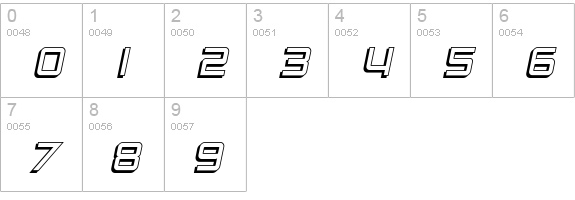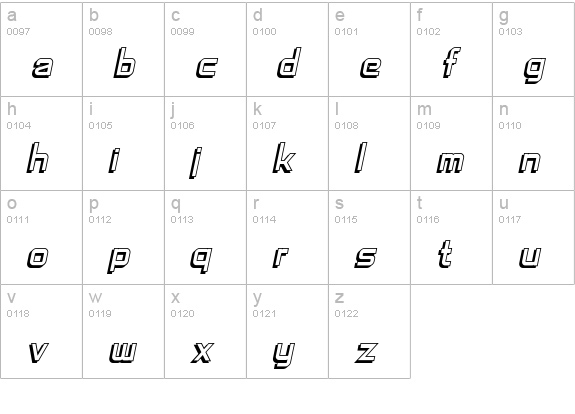
SF Chaerilidae Shaded Oblique Font Details
SF Chaerilidae Shaded Oblique is a distinctive, italic variant in the SF typeface family \xE2\x80\x94 well suited to design and typography projects.
Introducing SF Chaerilidae Shaded Oblique - a mesmerizing and versatile typeface that effortlessly combines elegance with a touch of eccentricity. This font is a testament to the boundless creativity and meticulous craftsmanship of its designer. With its unique shading and oblique design, SF Chaerilidae Shaded Oblique breathes life into any project, captivating viewers with its captivating curves and striking presence. This font is a true masterpiece, meticulously crafted to perfection. Its fluid strokes and impeccable detailing make it a perfect choice for a wide range of design projects. Whether you're creating an eye-catching logo, designing a captivating poster, or crafting an immersive website, SF Chaerilidae Shaded Oblique will effortlessly elevate your work to new heights. One of the most remarkable features of SF Chaerilidae Shaded Oblique is its versatility. It effortlessly adapts to various design styles, seamlessly blending with both modern and classic aesthetics. Its unique shading adds depth and dimension to any text, making it visually stunning and captivating. And the best part? SF Chaerilidae Shaded Oblique is free! Yes, you read that right. This remarkable font is freely available for download at FontsMarket.com. Now you can unlock the full potential of your design projects without any limitations. Immerse yourself in the world of endless possibilities and let SF Chaerilidae Shaded Oblique be your creative companion. So what are you waiting for? Don't miss out on this incredible opportunity to enhance your designs with a font that combines elegance, eccentricity, and versatility. Download SF Chaerilidae Shaded Oblique for free at FontsMarket.com and embark on a design journey like never before. Let your creativity soar with this extraordinary typeface and make a lasting impression on your audience.